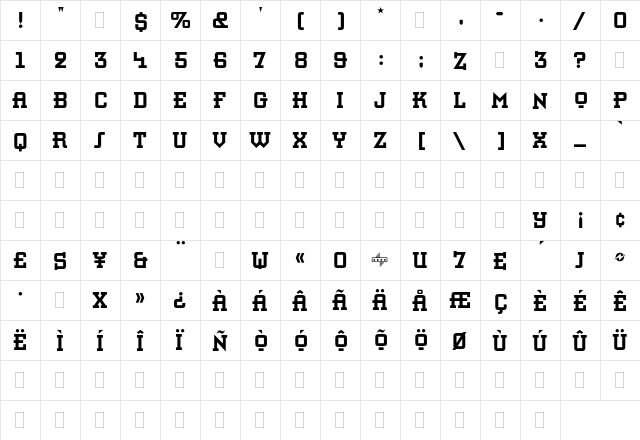
Retro Bold Plain
Design Context for Retro Bold Typeface
Retro Bold has the warm character of retro typography — evoking diners, record sleeves, and the golden age of print advertising. Its bold stroke weight gives it real presence on the page.
Font Pairing: Combine Retro Bold with a simple slab or neutral sans — period-accurate companions reinforce the vintage feel without competing for attention.
Pro Tip: Lean into Retro Bold's period character by pairing it with aged paper textures, muted colour palettes, and vintage illustration styles.